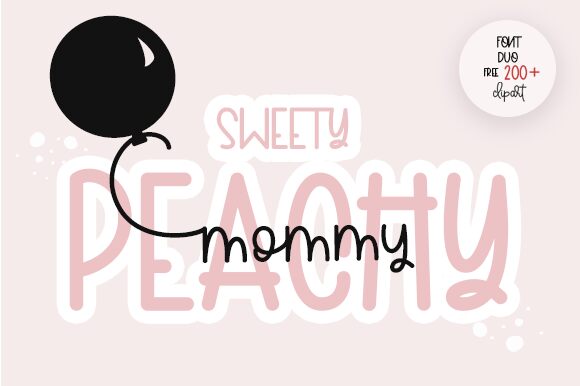
Sweety Peachy Display is a cute script font designed by Nopianti with a modern twist. Perfect for creating eye-catching designs, it's suitable for fun projects such as greeting cards, logos, posters and social media posts.
SweetyPeachy Display
Nopianti